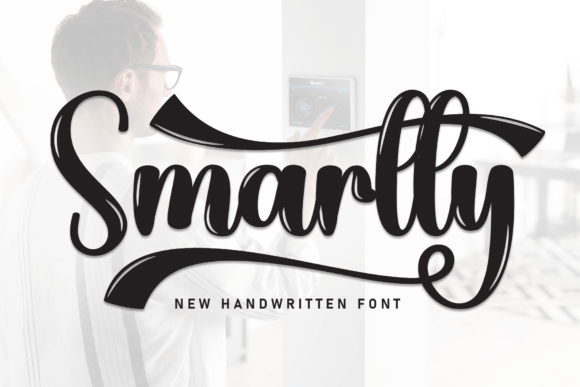
Introducing Smartly Font, the ultimate choice for those seeking a captivating and expressive script font. Created by andikastudio, this sweet and friendly handwritten font is designed to add a touch of elegance and creativity to any project. With its natural and unique style, Smartly Font is a versatile option that perfectly complements a wide range of designs.
Are you looking to create eye-catching designs for your online gaming platform or game-related projects? Look no further! Smartly Font is the ideal font for games, providing a perfect blend of playfulness and professionalism. Its bold and dynamic strokes will bring your game titles, character names, and in-game messages to life, captivating players from the very first glance.
But the possibilities don't end there. Smartly Font is not limited to gaming alone. Its charm and versatility make it an excellent choice for various design projects. Whether you're designing logos, branding materials, invitations, social media graphics, or even product packaging, this font will elevate your creations to a whole new level.
Picture this: a stylish and modern logo with Smartly Font, instantly capturing your target audience's attention. Its handwritten appearance adds a personal and authentic touch, making your brand stand out from the crowd. Your customers won't be able to resist the allure of your products or services when presented with such a visually appealing brand identity.
The beauty of Smartly Font lies in its ability to adapt to any mood or theme. Whether you're aiming for a whimsical and dreamy atmosphere or a bold and adventurous vibe, this font effortlessly adapts to your vision. Its versatility allows you to create designs that evoke emotions, tell stories, and leave a lasting impact on your audience.
But what truly sets Smartly Font apart is its ability to stimulate emotions. Imagine a heartfelt invitation to a special event, beautifully crafted with this font. The delicate curves and elegant strokes will convey warmth, excitement, and anticipation, making your guests feel truly special.